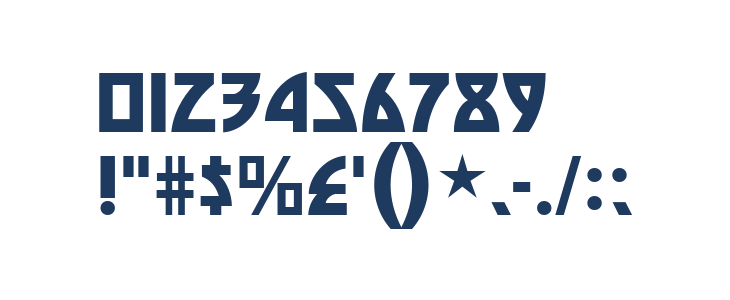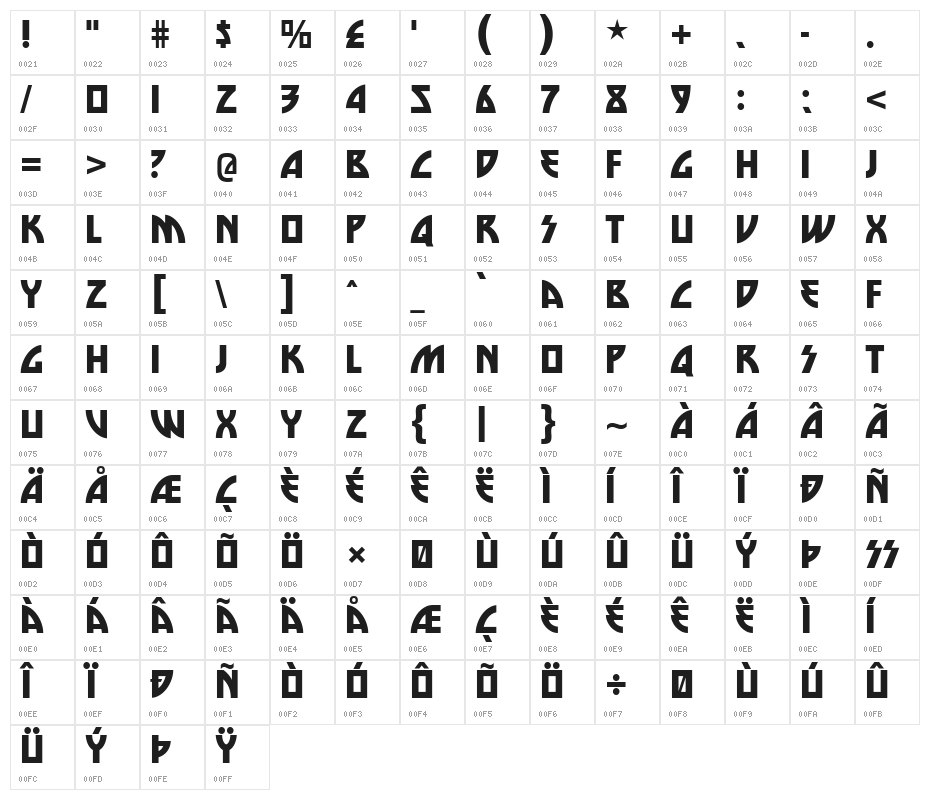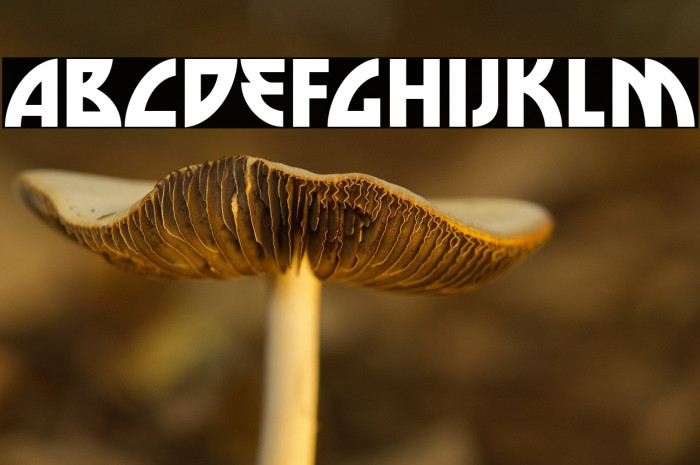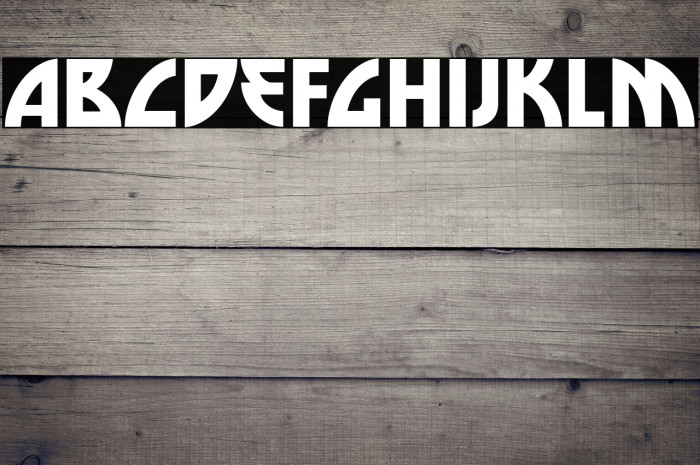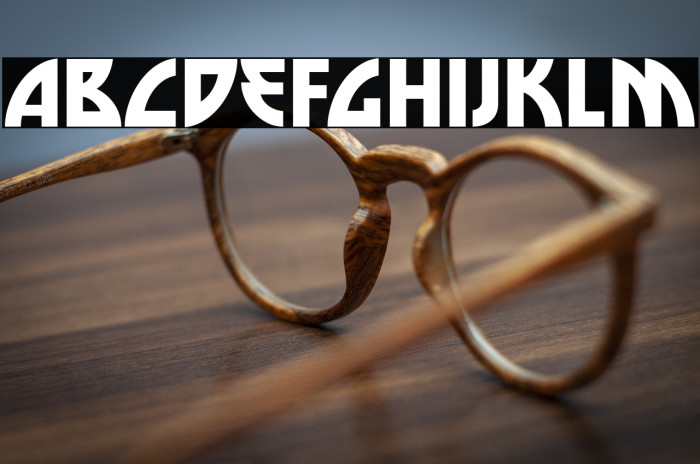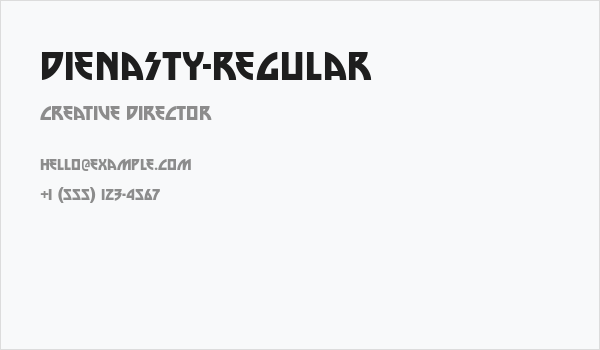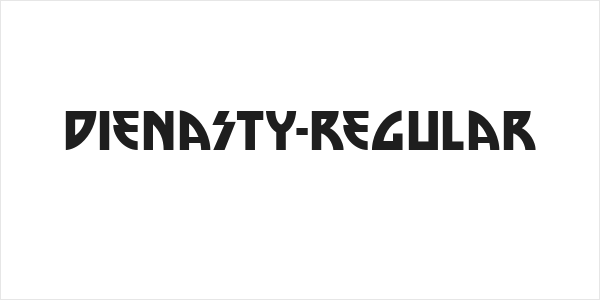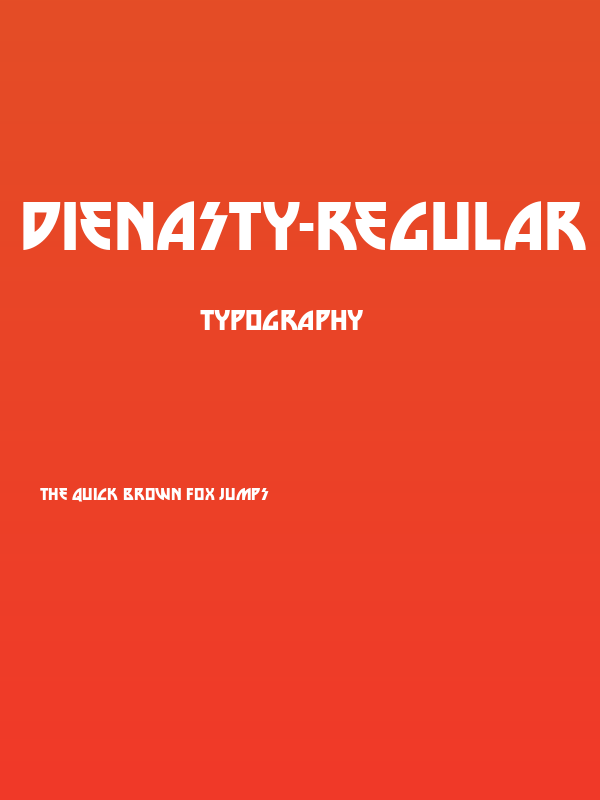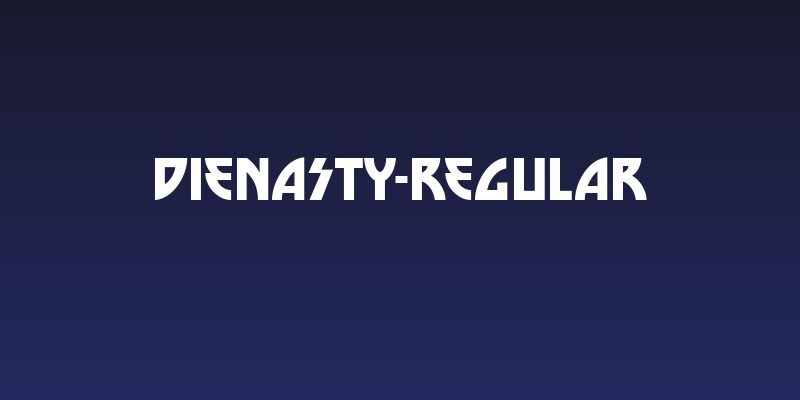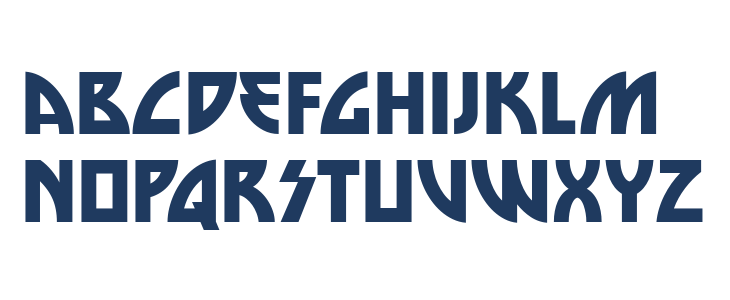
DieNasty-Regular Font
DieNasty-Regular Description
This font features a bold and striking design with angular and geometric shapes that create a strong visual impact. The uppercase letters are particularly distinctive, with sharp edges and a futuristic feel. The characters are wide and have a uniform thickness, contributing to a cohesive and solid appearance. The numerals and special characters maintain the same bold style, ensuring consistency across all elements. This font is ideal for projects that require a modern and edgy look, making it suitable for branding, posters, and headlines.
| Proposed Projects | Ideal for branding, posters, headlines, and any project requiring a modern, edgy look. |